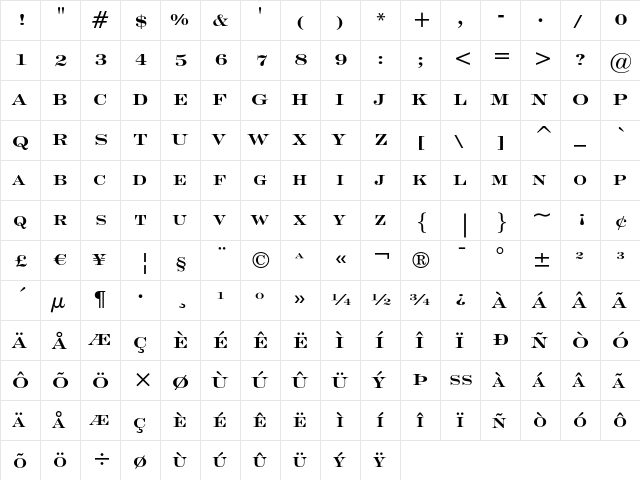
Engravers' Roman Bold
Design Context for Engravers' Roman Typeface
Engravers' Roman takes a measured approach to typography — its balanced proportions and neutral character make it a reliable workhorse for both digital and print work. The heavy weight commands attention and anchors typographic hierarchies.